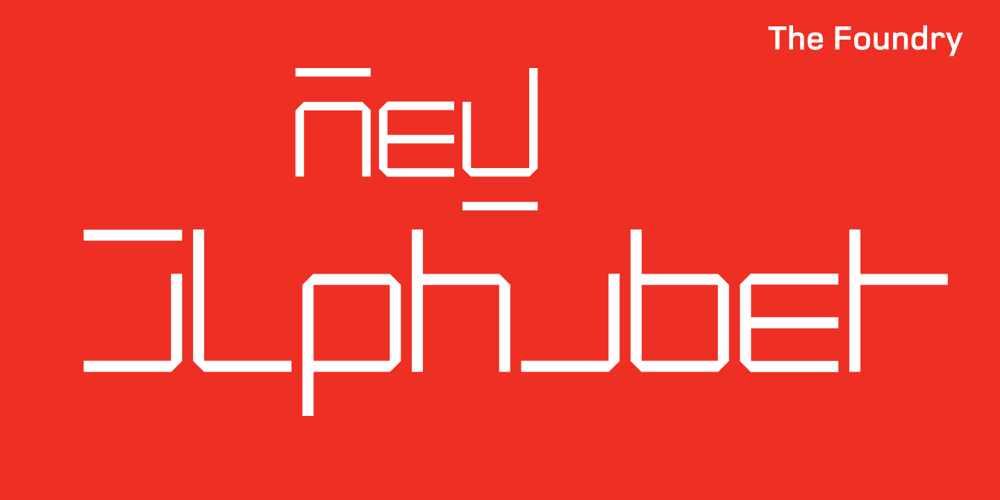
New Alphabet Font Family was designed by Wim Crouwel, Freda Sack, David Quay and published by The Foundry. New Alphabet contains 4 styles and family package options. New Alphabet was created as a four weight family in close collaboration with Wim Crouwel. His response in the late 1960s to the first device for electronic typesetting was a radical experiment designed to follow the underlying dot-matrix system. With his strong interest in grids, Crouwel worked within the constraints of existing electronic technology, to produce characters that worked with the mechanical means that conveyed them. His original New Alphabet experiments have now been further developed by The Foundry into a typeface family that also includes the dot version.